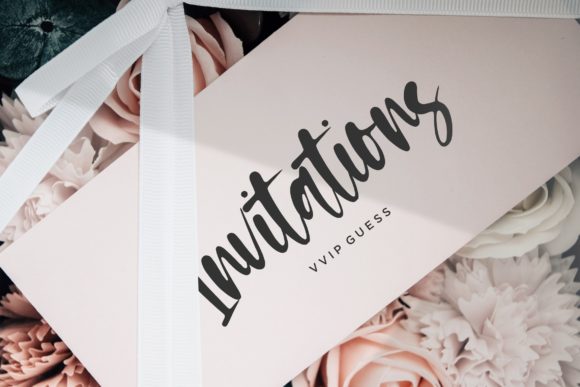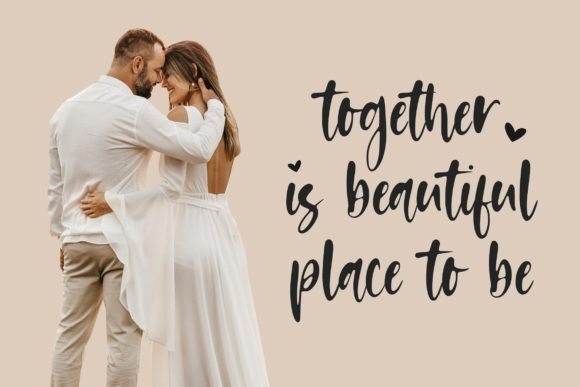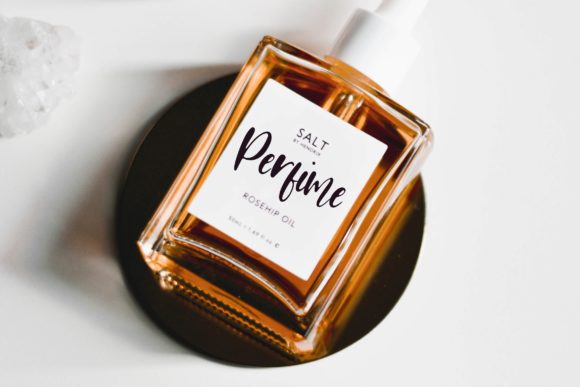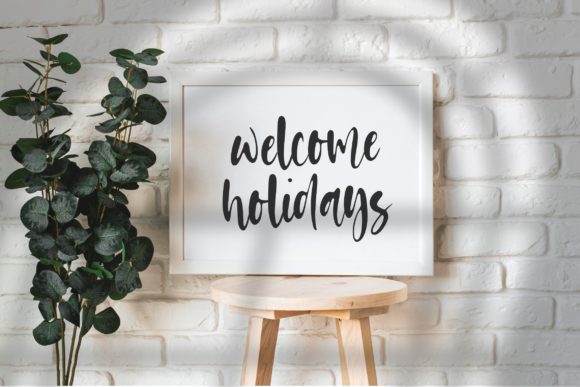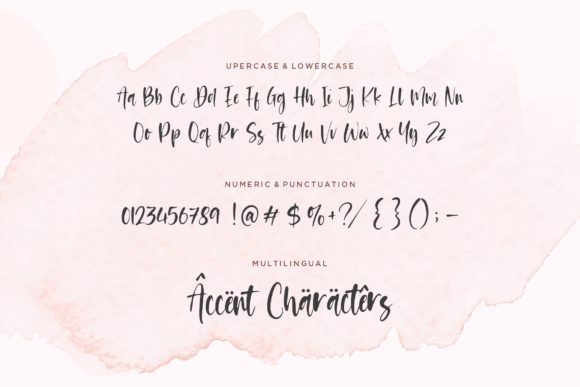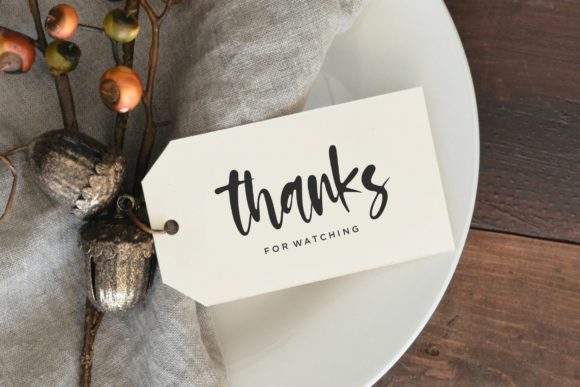
Dreams Hunter Font: Elevate Your Designs with Elegance
Are you on the hunt for a font that exudes elegance and sophistication? Look no further than the Dreams Hunter Font. This beautiful hand-brushed font is designed to add a touch of refinement to your favorite projects. With its flowing handwritten style and timeless charm, Dreams Hunter is the perfect choice for designers and crafters seeking to create stunning designs.
The Characteristics of Dreams Hunter Font
Dreams Hunter is a flowing handwritten font that boasts an elegant touch. Its incredibly distinct and timeless style sets it apart from other fonts, making it an excellent addition to your font collection. The font’s hand-brushed texture gives it a unique, organic feel that’s perfect for creating designs that stand out from the crowd.
Why Choose Dreams Hunter Font?
So, what makes Dreams Hunter Font so special? Here are just a few reasons why designers and crafters love this font:
- Elegant and Refined: Dreams Hunter’s elegant style makes it perfect for projects that require a touch of sophistication.
- Timeless Appeal: The font’s classic design ensures that your projects will remain stylish for years to come.
- Versatile: Dreams Hunter is suitable for a wide range of projects, from branding and advertising to packaging and digital design.
- Easy to Read: The font’s clear and flowing script makes it easy to read, even at smaller sizes.
Using Dreams Hunter Font in Your Designs
So, how can you use Dreams Hunter Font to elevate your designs? Here are a few ideas to get you started:
- Branding and Logo Design: Use Dreams Hunter to create a sophisticated brand identity that sets your business apart.
- Wedding and Event Design: Add a touch of elegance to your wedding invitations, stationery, and event materials with Dreams Hunter.
- Packaging Design: Use the font to create eye-catching packaging that stands out on store shelves.
- Digital Design: Incorporate Dreams Hunter into your digital designs, such as website headers, social media graphics, and email newsletters.
Tips for Working with Dreams Hunter Font
To get the most out of Dreams Hunter Font, here are a few tips to keep in mind:
- Experiment with Font Sizes: Dreams Hunter looks great at a range of font sizes, so don’t be afraid to experiment to find the perfect size for your project.
- Pair with Other Fonts: Combine Dreams Hunter with other fonts to create a unique and visually appealing design.
- Use in Combination with Images: Pair Dreams Hunter with high-quality images to create stunning designs that capture attention.
In conclusion, Dreams Hunter Font is a beautiful and elegant font that’s perfect for designers and crafters seeking to add a touch of sophistication to their projects. With its timeless appeal, versatility, and ease of use, Dreams Hunter is an excellent addition to any font collection. Whether you’re working on branding, packaging, or digital design, Dreams Hunter is sure to elevate your designs and help you create stunning visuals that capture attention.